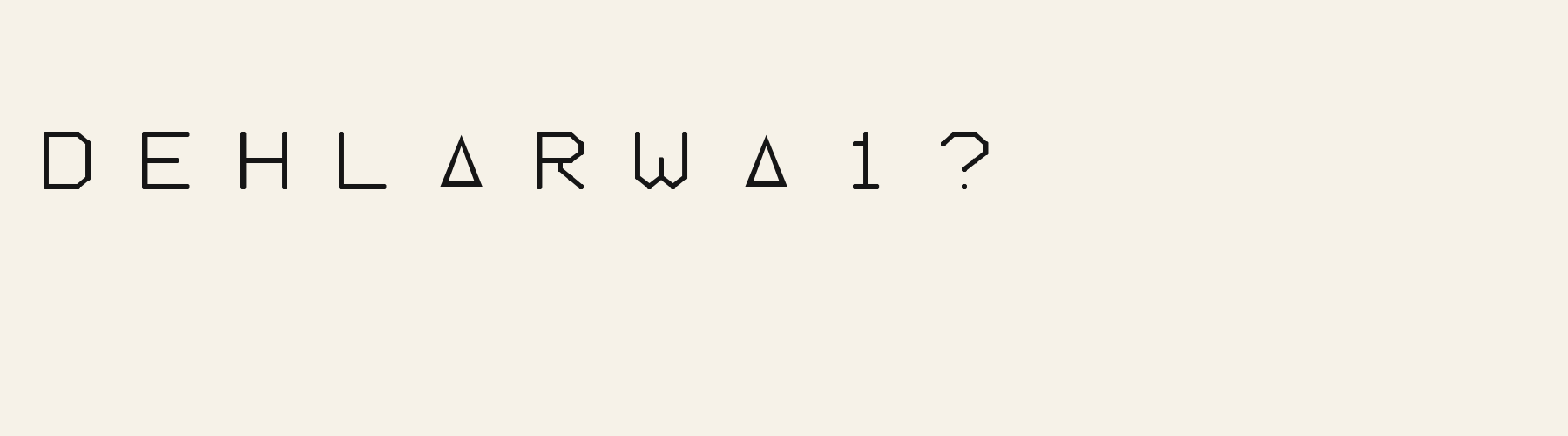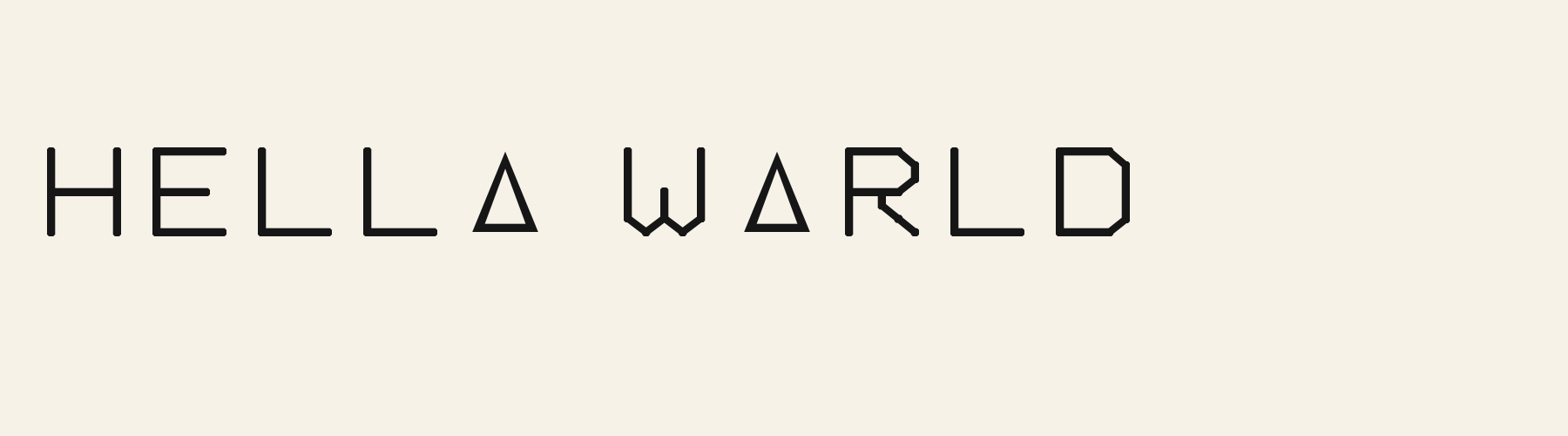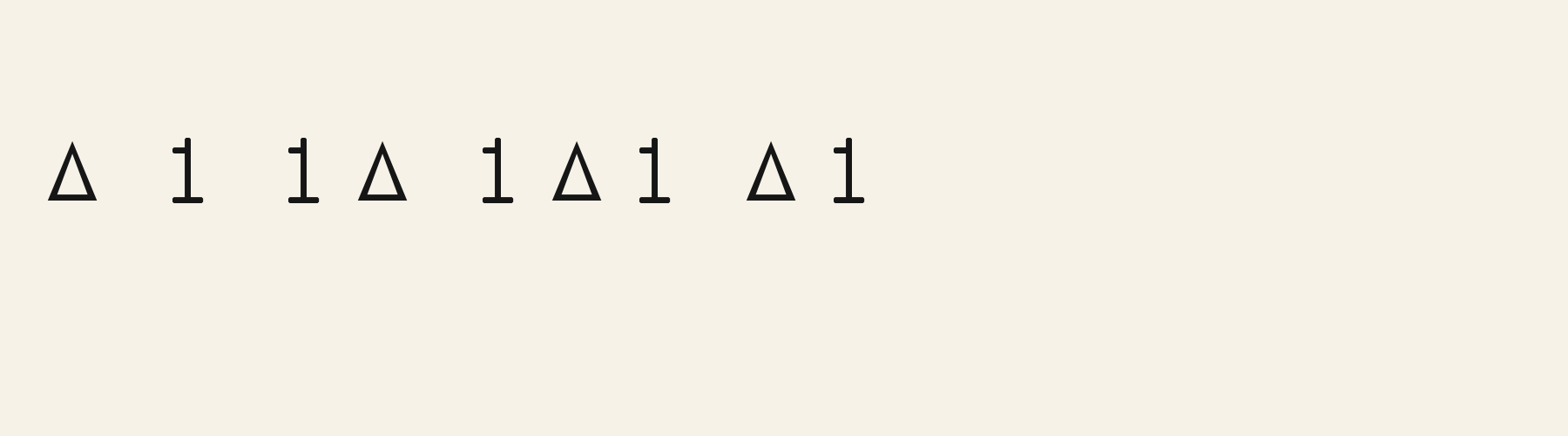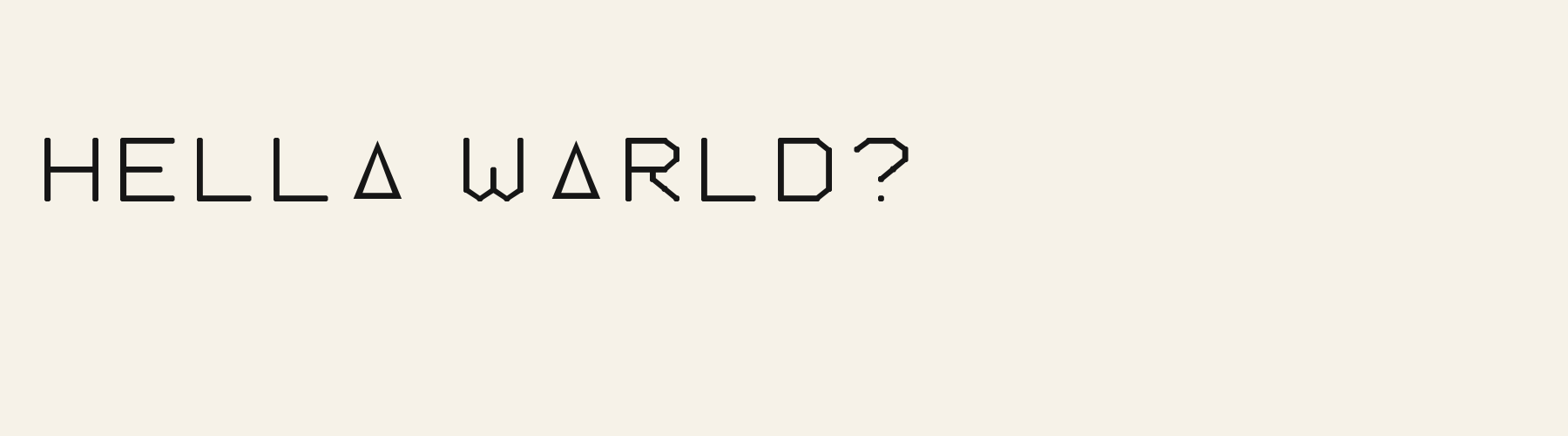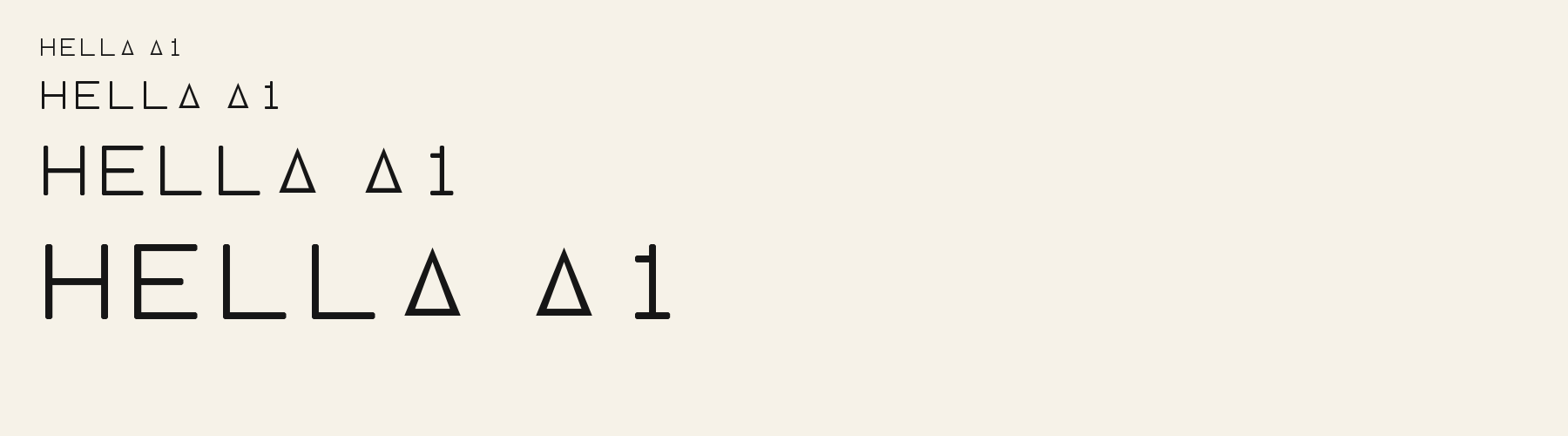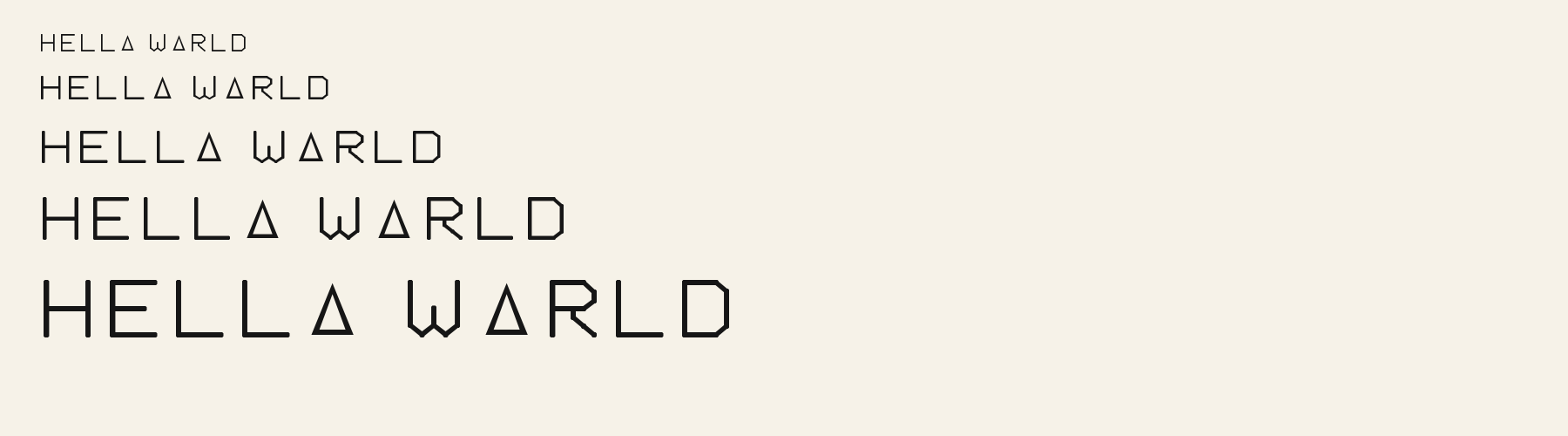
Geo Triangle Aperture Hollow Peak Monoline Font
Geo Triangle Aperture turns familiar capitals into an angular sequence of stems, peaks and clipped corners.
Hollow Peak Monoline Letterforms
Geo Triangle Aperture turns familiar capitals into an angular sequence of stems, peaks and clipped corners. The O is a hollow triangle with a flat base, making it the strongest interruption in a word. The R combines a shallow, faceted bowl with a leg that steps down before running diagonally outward. The W keeps upright outer stems and folds into pointed lower valleys around a short central stem. Mostly even strokes give these unusual shapes a consistent weight, while broad spacing leaves their outlines exposed. The result feels spare, mechanical and suited to a futuristic visual identity.
Check O beside A in your Latin wording, then inspect the stepped R leg and W joins in smaller previews. Review word spaces across the full title. Test Devanagari shaping and vowel placement separately with actual text; the supplied specimens show Latin forms.
Try this face for short headings, with a compact text sans for supporting copy and navigation labels. Its triangular O and angular W already supply strong visual accents, so a companion with conventional bowls could keep longer explanations easy to follow.
Geo Triangle Aperture: letterforms and layout
Compare smaller and larger previews to check whether the stepped R leg and angular W joins remain distinct. The triangular O stays prominent, but its relationship to the surrounding straight letters changes as the details become less visible.
Geo Triangle Aperture gives the phrase heavier strokes, triangular O forms and clipped corners on D and R. Its W combines upright sides with angular valleys, making the word silhouette visibly segmented.
Ion Hairline uses finer strokes, broad rounded rectangular O forms and a D with a curved right side. Its W follows continuous diagonals, giving the same phrase a more flowing outline.
Poster. Triangular O forms punctuate the title, while the open spacing gives the angular letters room within a sparse poster composition. LOW SIGNAL
Book or album cover. The forked W and hollow O give a short album title a recognisable silhouette against a simple cover background. EXPLORE NEW WORLDS
Website headline. Broad capitals and clipped bowls give a brief website heading a mechanical character that can anchor a restrained interface.
The scenes are illustrations drawn on this page with Geo Triangle Aperture itself, not client work.
Geo Triangle Aperture's lowercase x reaches 69.7% of the capital height, close to the 71.4% median for sans serif fonts, lower than 25 of the 34 other sans serif fonts. Ascenders on b, d, h, k and l line up with the capitals (100% of their height), and descenders on g, j, p, q and y drop 30.3% of the cap height below the baseline, deeper than 26 of the 34 other sans serif fonts. Geo Triangle Aperture runs 49.6% wider than the median for sans serif fonts: an average lowercase letter, spacing included, is 117.1% as wide as the capitals are tall (an average capital, 117.8%). The o is wider than it is tall, 1.23 to 1, and M and W are the widest capitals, at 1.12 times the width of H. The O stops 4.6% of the cap height short of H and stands 4.6% above the baseline.
The letters stand upright, leaning less than 2.5° either way. Vertical stems measure 9.2% of the cap height, lighter than 18 of the 28 other sans serif fonts. Ink covers 16.8% of each lowercase letter's box (its advance width by the cap height), lighter than 28 of the 34 other sans serif fonts. The contrast is reversed: the tops and bottoms of o and O are 1.4 times as thick as their sides.
Its 228 characters include 116 Latin and 67 Devanagari letters, plus 45 figures, punctuation marks and symbols; 64 of the Latin letters are accented or special forms beyond A to Z. The word space measures 57% of the cap height, and the blank space either side of a lowercase letter takes up 33.4% of its width. The font carries no kerning, so spacing comes from each letter’s own side bearings. Its OpenType tables also hold Devanagari conjuncts and vowel signs (half, rphf, blwf and more) and mark positioning for accents and vowel signs (mark, mkmk). All ten figures share one width, so columns of numbers line up.
- What fonts pair well with Geo Triangle Aperture?
- Lore Serif (serif), Window Arch Slab (serif) and Copperline Script (script) are drawn on a different letter structure, so Geo Triangle Aperture can carry the headings while one of them sets the text. Each has its own page with a type tester for trying the pair.
- Which fonts are similar to Geo Triangle Aperture?
- In the same sans serif style: Atrium Sans (46% narrower, heavier strokes); Ion Velvet Grotesk (heavier strokes, 44% narrower); Grid Sans (31% narrower, heavier strokes).